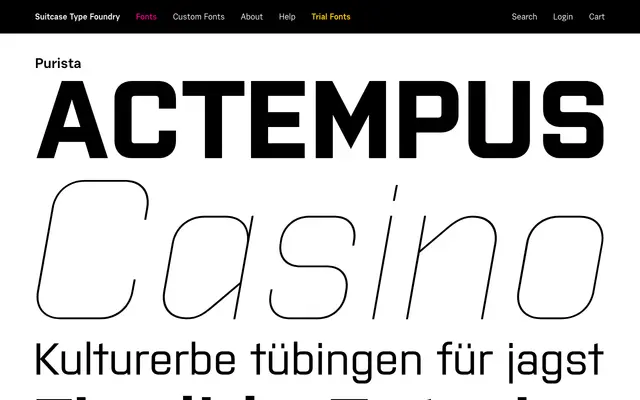
A geometric sans-serif from Suitcase Type Foundry with a clean, modernist character suited to corporate and editorial use.
Purista is a geometric sans from the Prague-based Suitcase Type Foundry, sharing the foundry's characteristic attention to clean letterform construction and central European modernist sensibility. The family covers essential weights with matching italics, making it a workable choice for branding and text applications where a neutral but precise tone is needed.
The name and foundry context suggest a clean geometric sans-serif design, typical of Suitcase Type Foundry's central European modernist output.